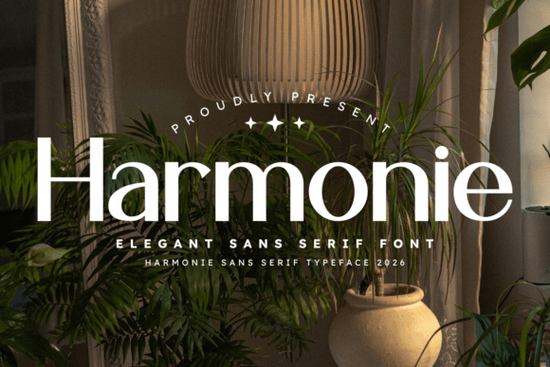
If you're looking for a clean, professional font that works well across print and digital projects, Harmonie Font is a solid choice. It’s a modern sans serif typeface with subtle elegance perfect when you want your design to feel polished without being flashy. Whether you’re building a brand, designing a flyer, or creating content for social media, Harmonie brings balance and clarity to every project.
What makes Harmonie Font stand out?
Unlike many fonts that lean too hard into minimalism or overdo decorative details, Harmonie finds a sweet spot between simplicity and refinement. The letterforms are clean and evenly spaced, which improves readability on screens and in printed materials alike. Its consistent stroke width and balanced proportions make it easy to use in long-form text, headlines, or even small captions.
The font family includes multiple weights light, regular, medium, bold, and extra bold so you can create visual hierarchy without switching to another typeface. This flexibility helps you maintain a cohesive look across different parts of your design, from a website header to a product label.
Where can you use Harmonie Font?
It’s ideal for a range of creative work:
- Luxury branding – Think high-end boutiques, skincare lines, or boutique hotels.
- Magazine layouts – Use it for article titles, pull quotes, or body text to keep the focus on content.
- Print-on-demand designs – Great for mugs, tote bags, and wall art where legibility matters.
- Website copy and UI elements – Works well in navigation menus, buttons, and form fields.
Because it doesn’t draw attention to itself, Harmonie lets your message shine through. That’s especially helpful if you’re targeting an audience that values clarity and sophistication.
How does Harmonie fit into a designer’s toolkit?
Many designers keep a few reliable fonts they return to again and again. Harmonie fits that role well. It’s not flashy, but it’s dependable. You can pair it with other fonts like a playful script or a bold display type for contrast, or use it alone for a minimalist aesthetic.
When choosing a font, consider how it performs in different sizes and contexts. Test it in both dark mode and light backgrounds, and check how it looks on mobile screens. Harmonie holds up well in all these scenarios, making it a safe bet for everyday use.
Final thoughts: Is Harmonie right for your next project?
If you value consistency, readability, and a timeless look, Harmonie Font deserves a spot in your library. It’s not trying to be everything to everyone it’s focused on doing one thing really well: providing a clear, elegant foundation for your designs.
For creators who want to avoid cluttered visuals and stay true to a refined aesthetic, this font supports that goal quietly and effectively.